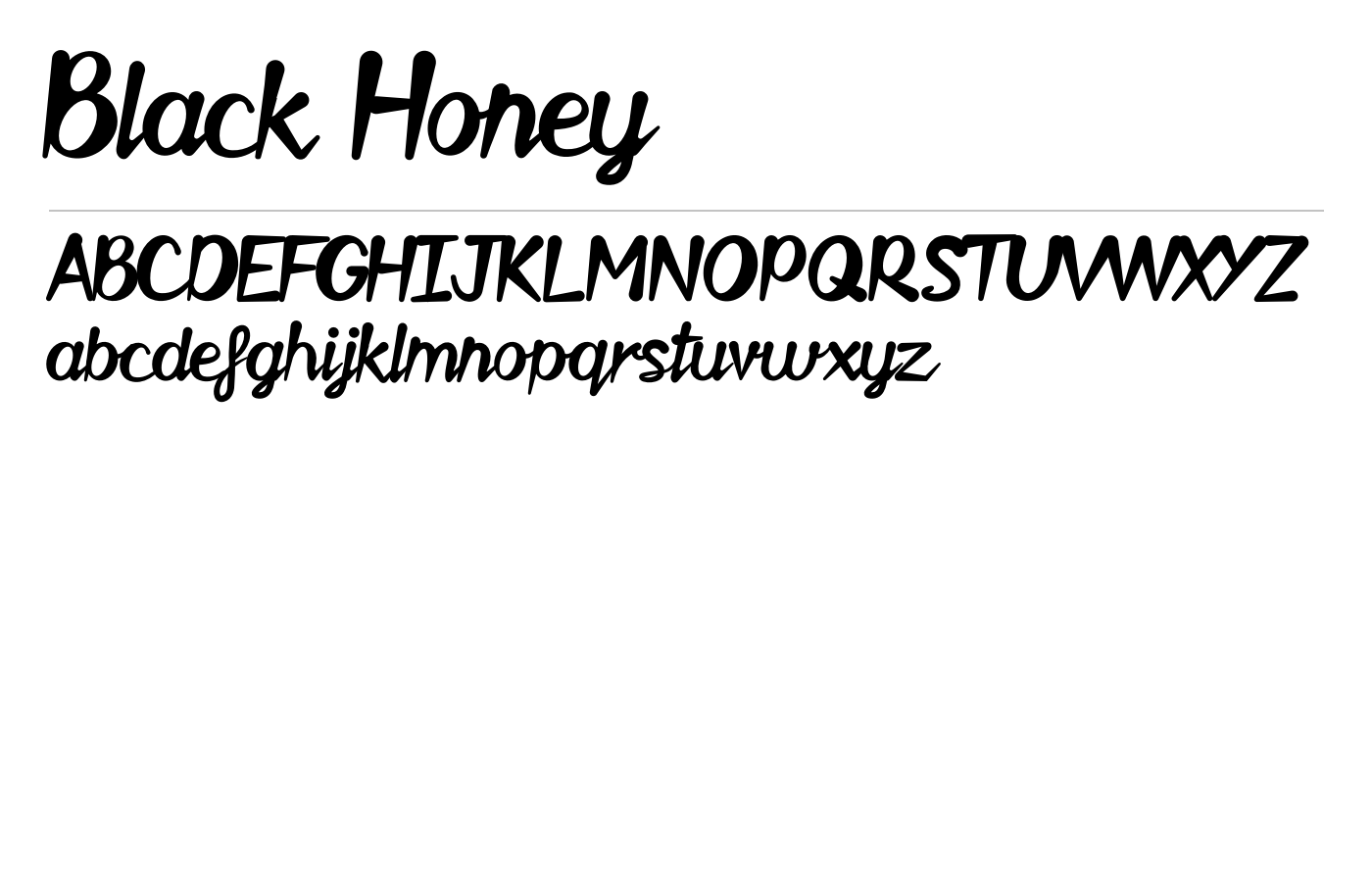
Black Honey is a bold, playful script font with a casual and friendly vibe, featuring smooth, rounded strokes and a slight slant that gives it a handwritten feel. Its distinctive letterforms and strong presence make it perfect for branding, logos, and headlines where a warm, approachable character is desired. This font works well in creative projects looking to convey personality and charm with a modern, accessible style.
Black Honey Font
About Black Honey Font
| Font family | Black Honey Font |
| Designer | Mohamed Salman Parsy |